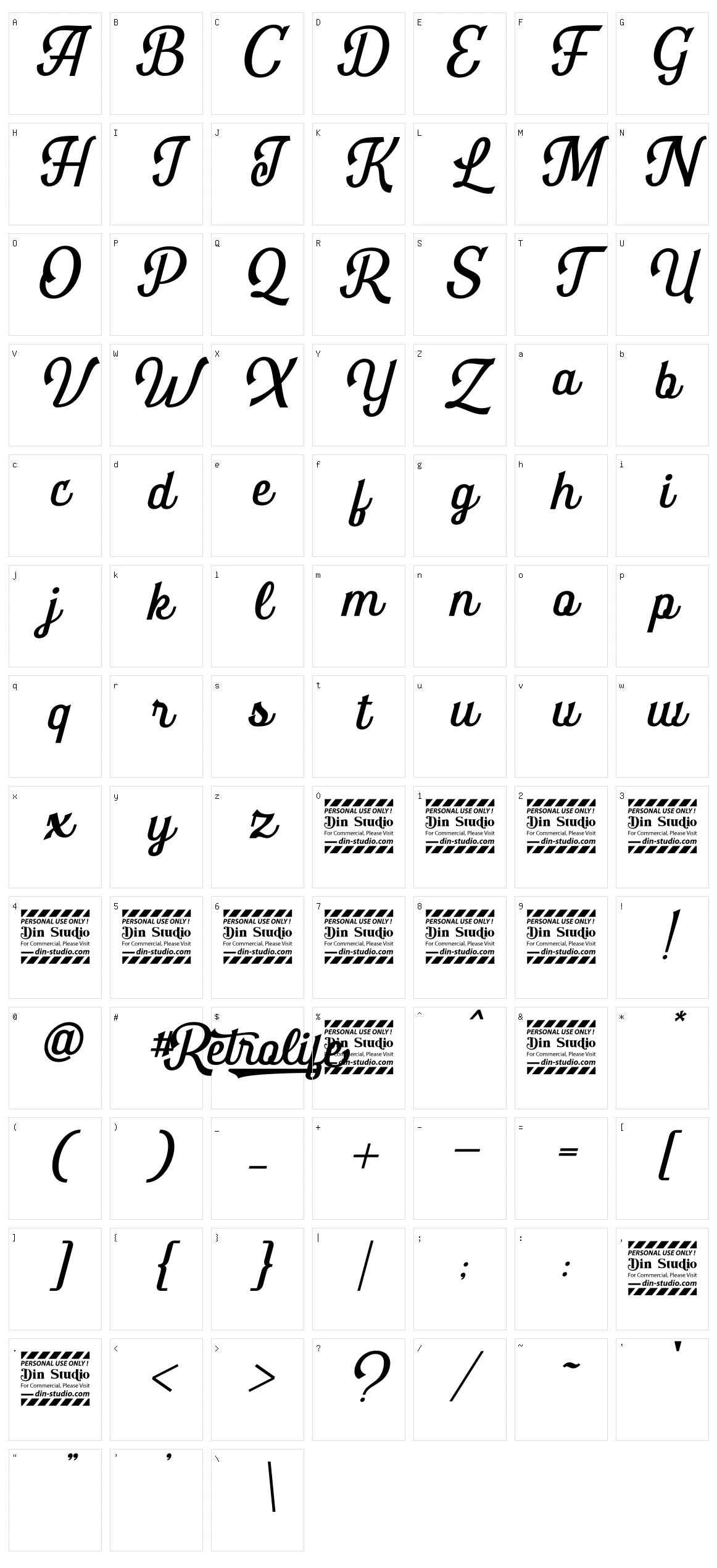
The free font Retrolife is carefully designed by Din Studio, showcasing a thoughtful balance of creativity and usability and falls under the Old-School font style. When you download the ZIP file, it contains only 290.73 KB of font files, making it lightweight and quick to download. Please review the license details below to understand permitted usage and distribution rights. If license information is not available, we recommend using this font for personal projects only or contacting the author directly for commercial usage permissions.